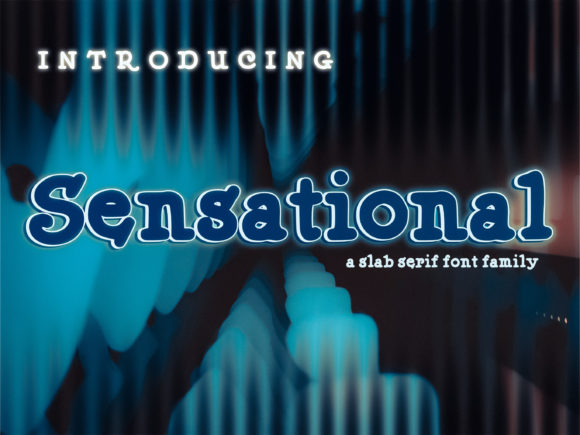
Unleash the power of persuasion with Sensational Font, an irresistible serif typeface crafted for marketing brilliance. Each stroke of this elegant font is designed to captivate attention and leave a lasting impression.
Sensational Font's allure lies in its masterful curves and impeccable balance. Its smooth lines flow seamlessly, creating an aesthetic masterpiece that adds an instant touch of sophistication to any design. Elevate your marketing materials, and watch as your words transform into a magnetic force that draws customers in.
Imagine your marketing letters, brochures, and social media posts radiating with an unmatched allure. Sensational Font empowers you to create designs that resonate with your audience, building an unbreakable connection that drives conversions and fuels brand loyalty.
With Sensational Font in your design arsenal, you'll captivate attention, ignite emotions, and inspire action like never before. Its unique blend of style and substance will make your marketing campaigns irresistible, leaving a lasting impression that translates into tangible results.
Created by the renowned The Tenacious Type Studio, Sensational Font is a testament to their dedication to excellence. Their passion for typography shines through in every letterform, ensuring that your designs stand out from the crowd and make a bold statement.
Join the ranks of savvy marketers who have discovered the transformative power of Sensational Font. Let your words dance with elegance, engage your audience, and turn your marketing efforts into a symphony of success.